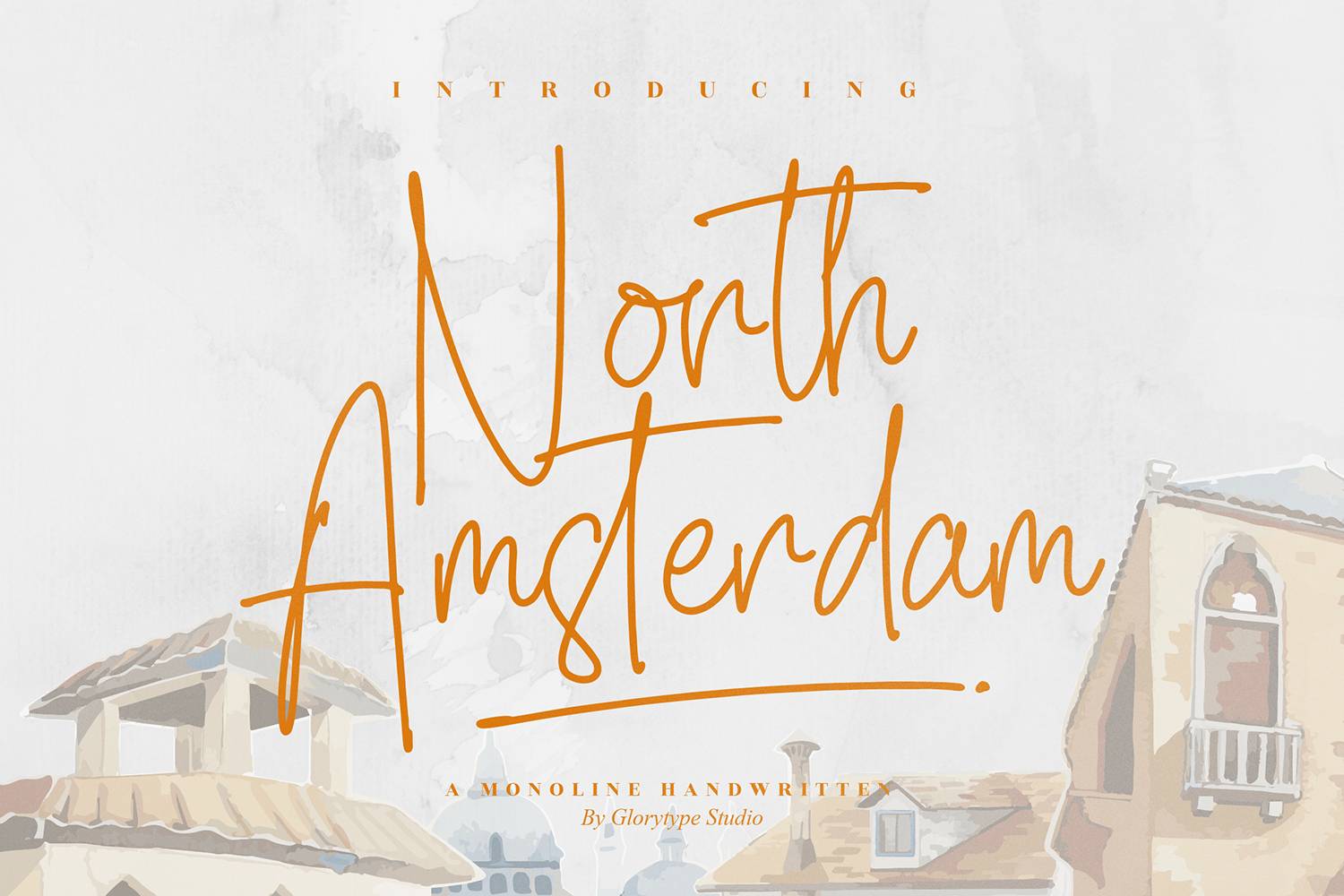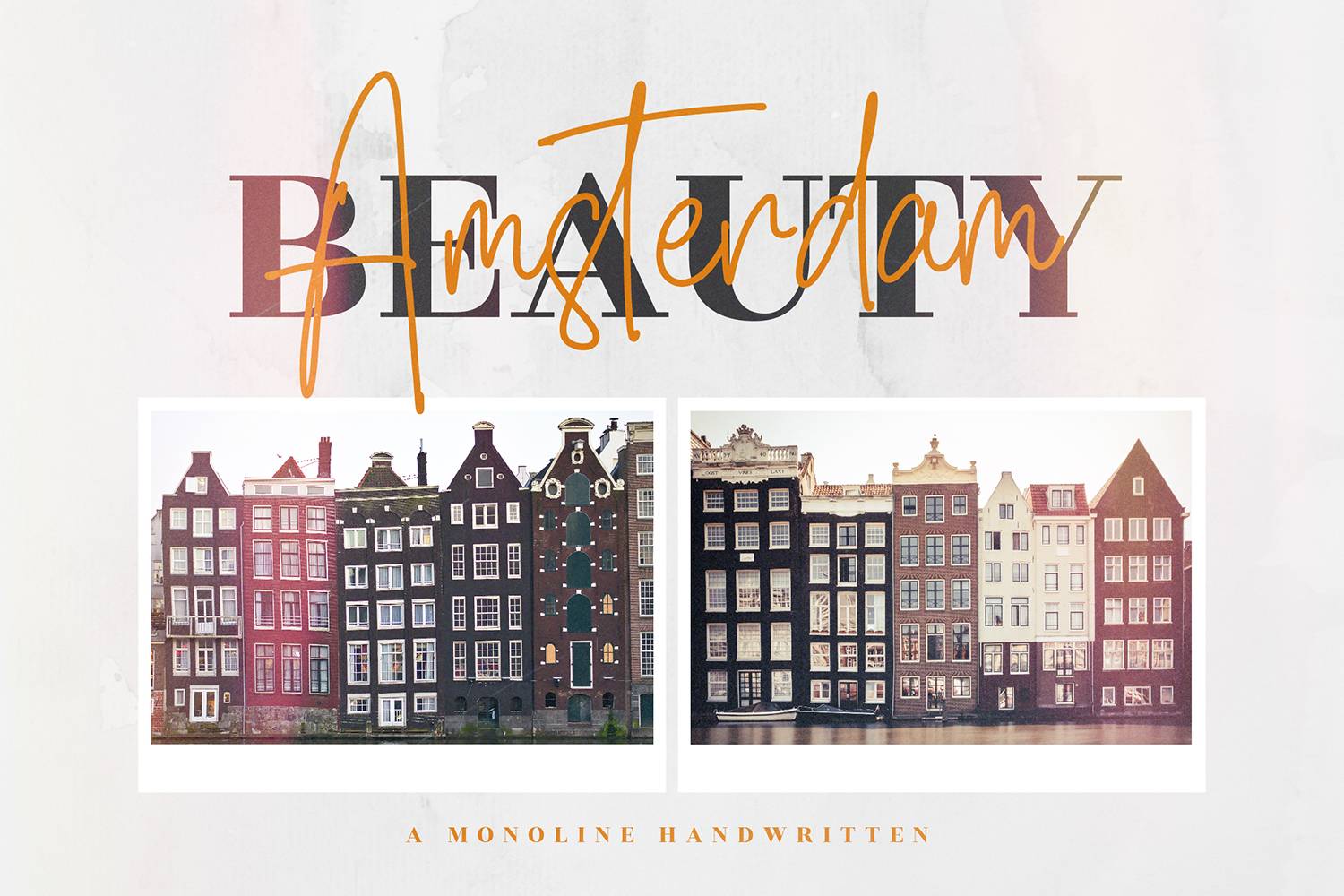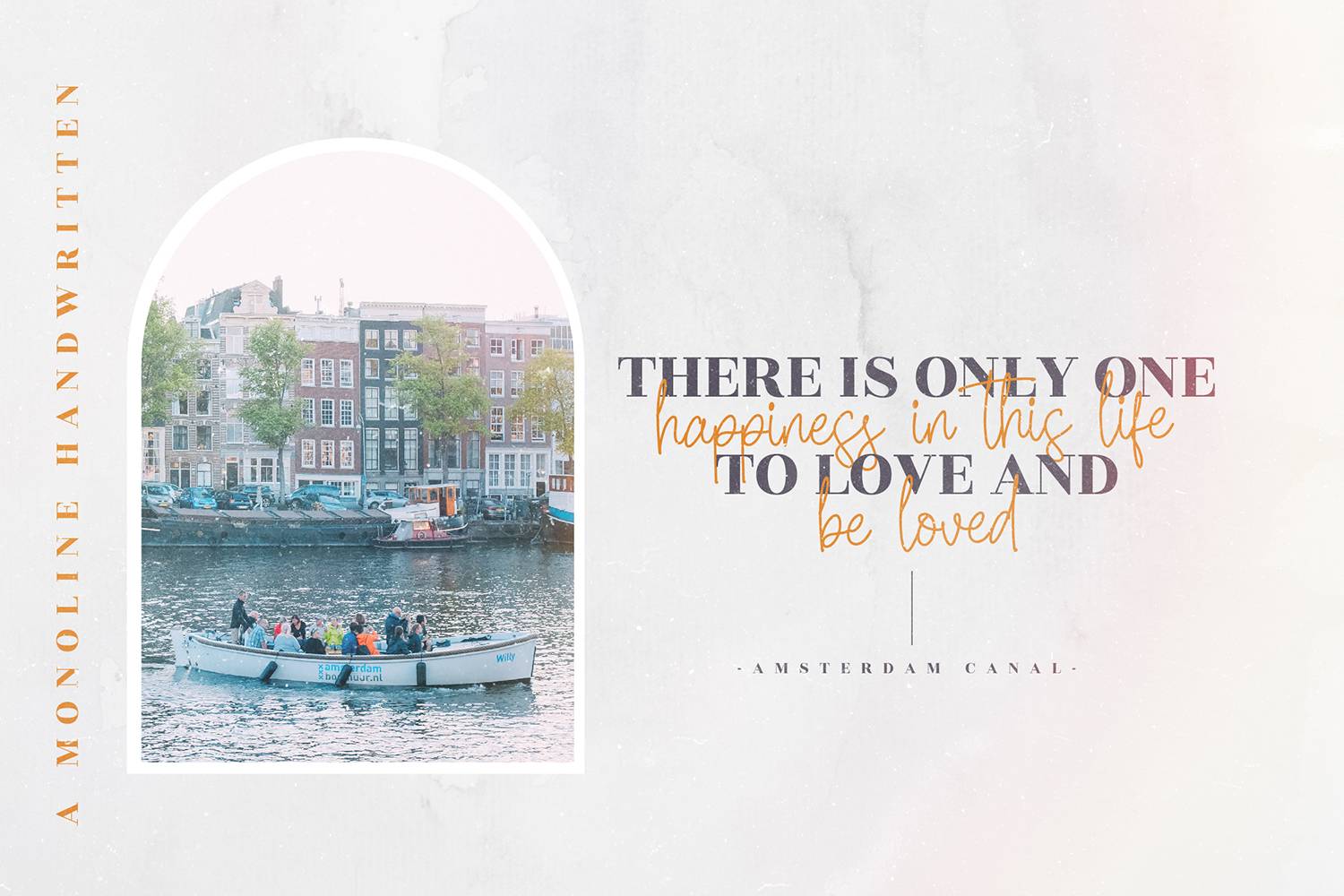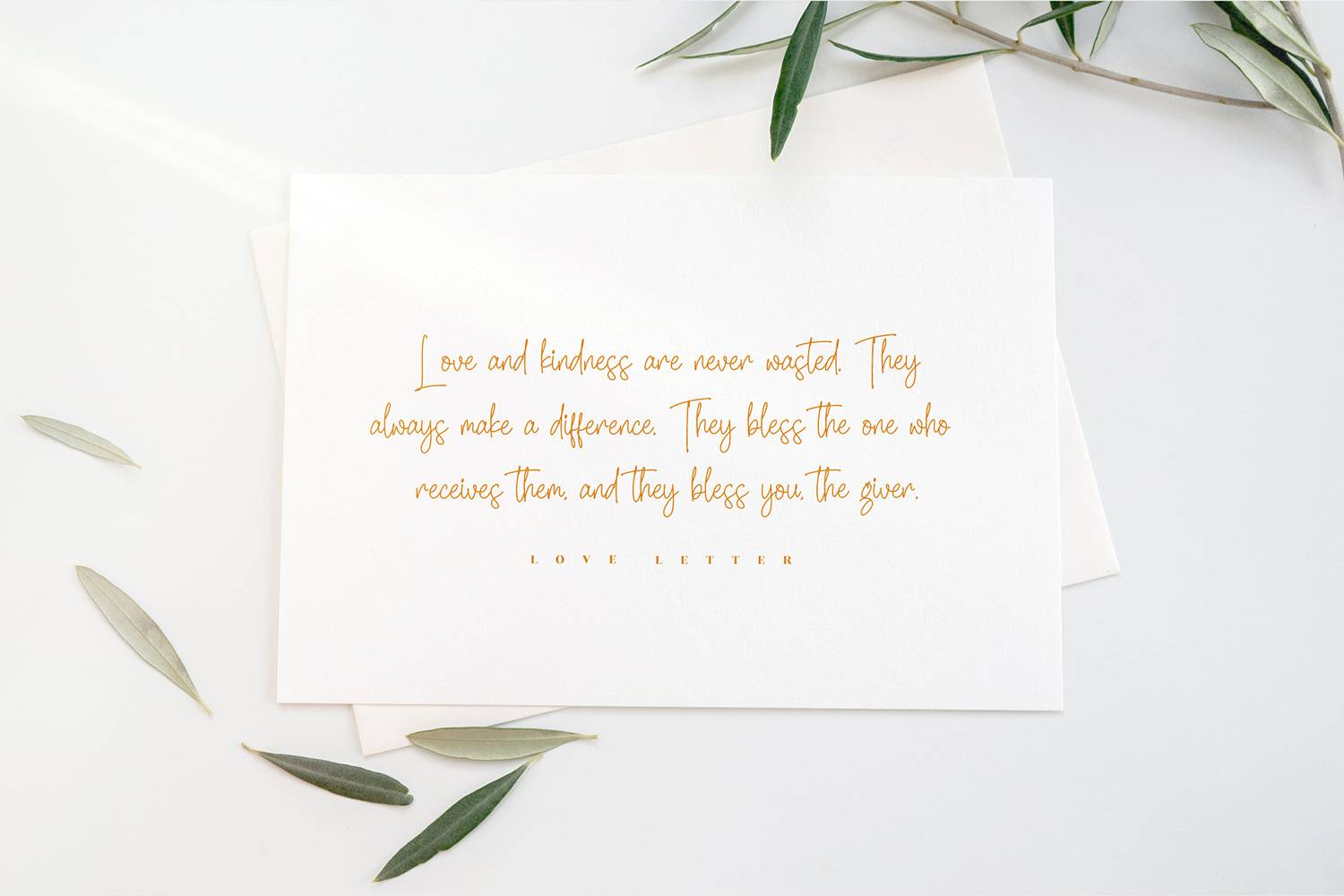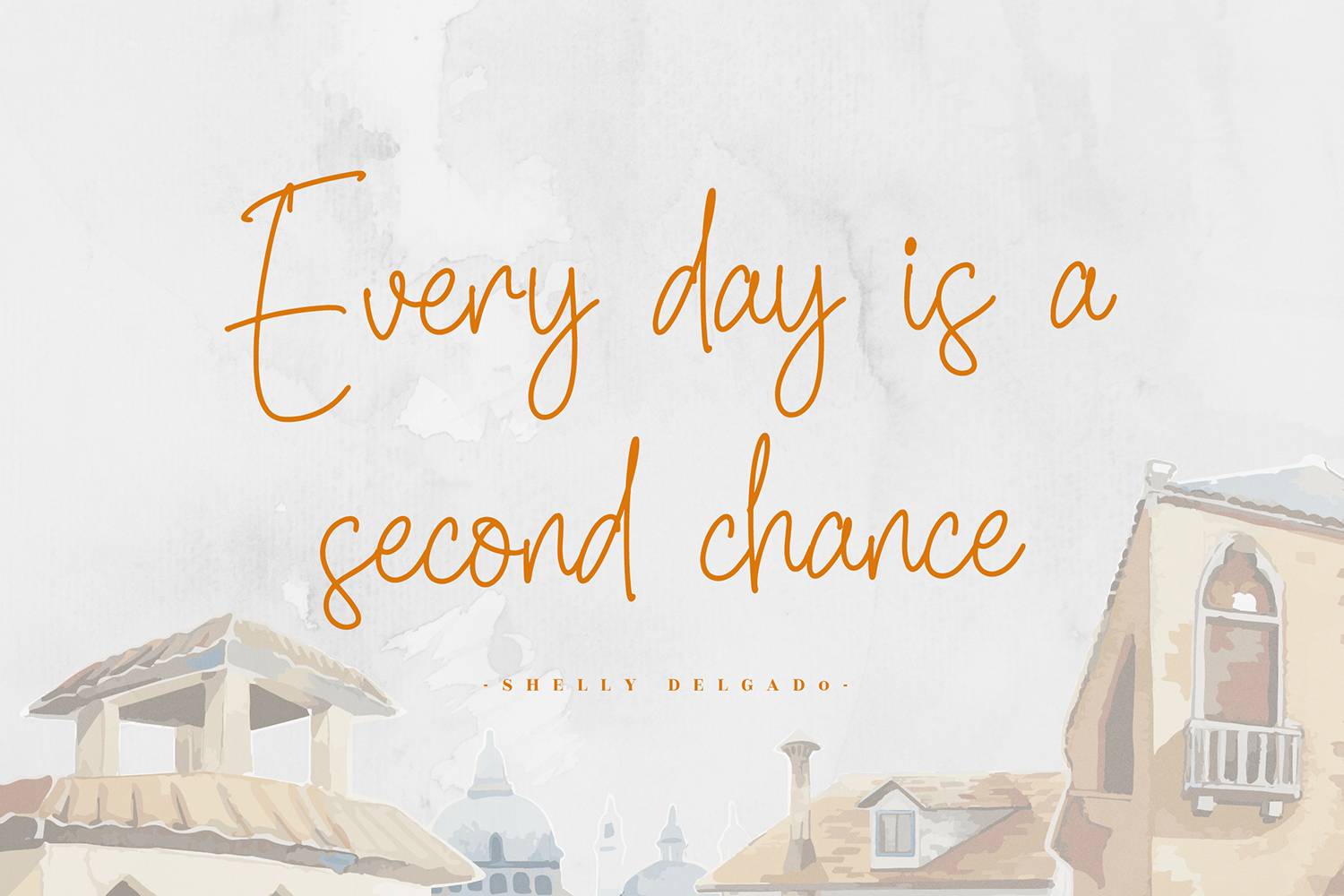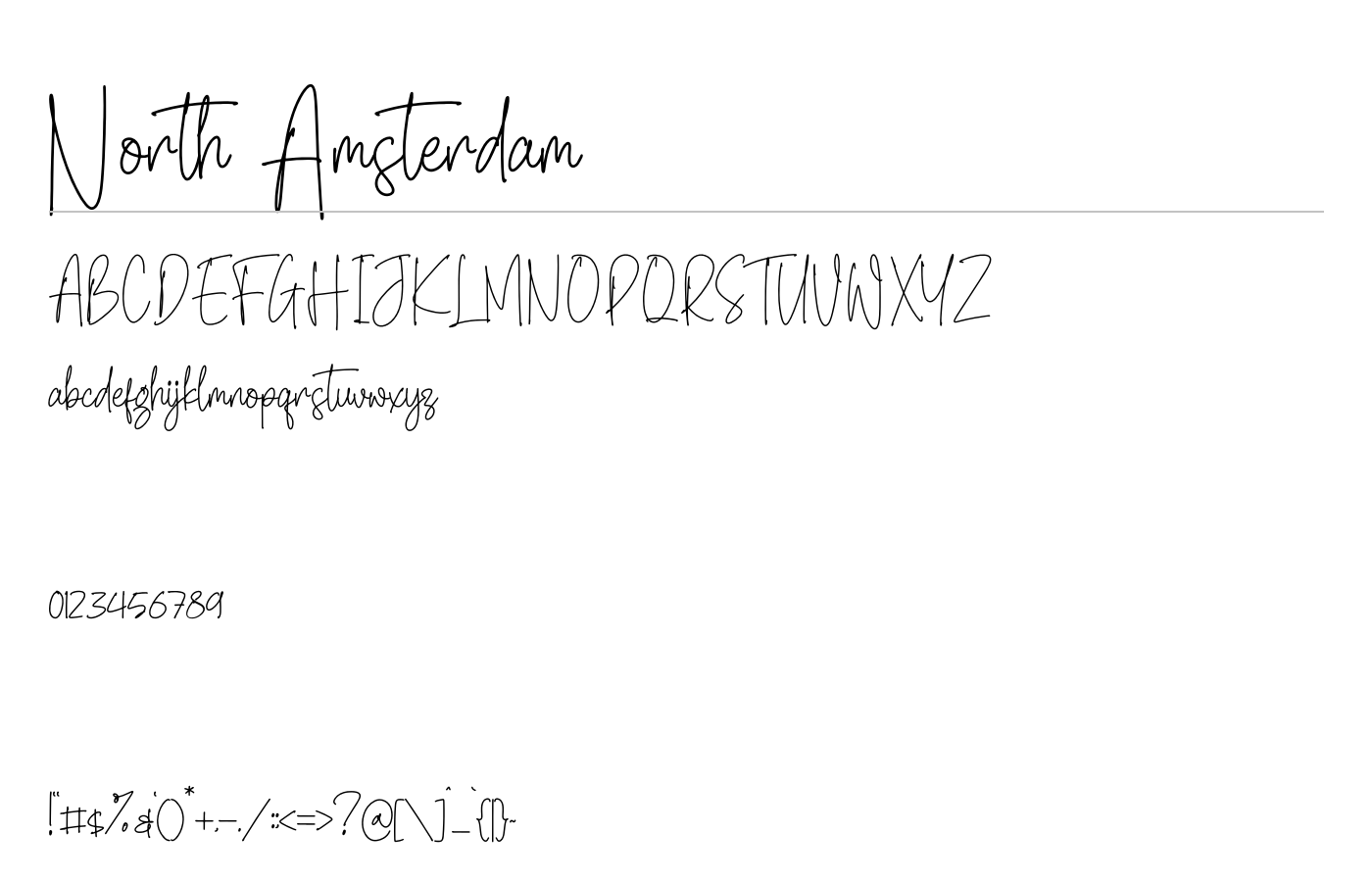
North Amsterdam is a delicate, handwritten script font that combines a tall, narrow structure with fine, flowing lines to create an elegant yet casual feel. Its light weight and airy spacing make it perfect for adding a personal, artistic touch to fashion branding, invitations, or lifestyle blogs, where a refined yet approachable style is desired. This font works beautifully in headlines and display text, bringing a modern, sophisticated charm to any creative project.
North Amsterdam Font